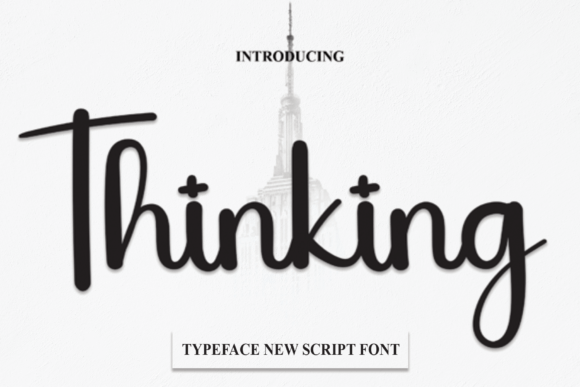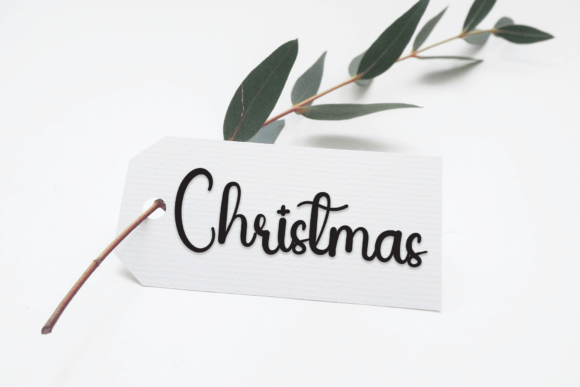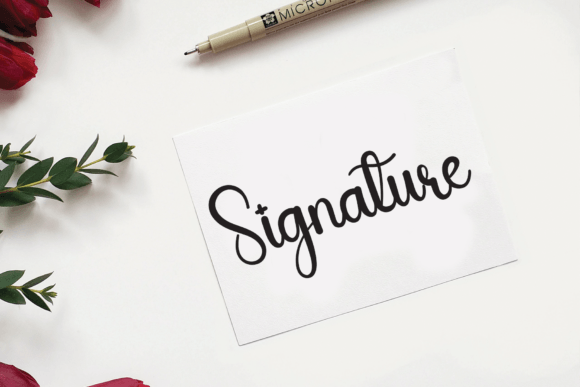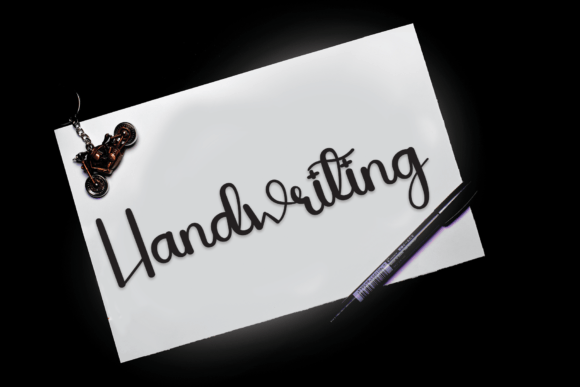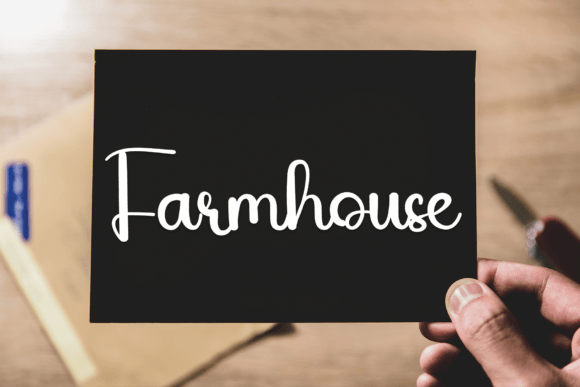
Thinking Font
Add a warm and approachable feel to your creative projects with the Thinking font. This simple and friendly handwritten script is designed to become your go-to font for many different occasions. Whether you are working on crafts, digital designs, presentations, or greeting cards, Thinking fits perfectly.
The Thinking font features clean and easy-to-read strokes that bring charm and friendliness to any design. Its versatile style allows it to be used across a wide range of creative projects. This font makes your work feel personal, natural, and inviting.
You can use the Thinking font for crafts, digital artwork, presentations, and card-making. Its casual yet neat look is ideal for projects that want to connect with audiences through a natural handwritten style. This font is perfect for anyone looking for a friendly and clear handwritten script.
Despite its simple design, the Thinkingfont offers excellent readability at various sizes. Whether used for bold headlines or smaller text elements, it ensures your message remains clear and stylish.
Using the Thinkingfont will add a genuine and inviting character to your projects. If you want a handwritten font that’s versatile and easy to use, this font is a great addition to your collection.
In summary, the Thinkingfont is a simple, friendly, and versatile handwritten script. Perfect for crafts, digital designs, presentations, and greeting cards, it brings warmth and personality to your creative work. Download it today and make your designs more inviting with Thinking.